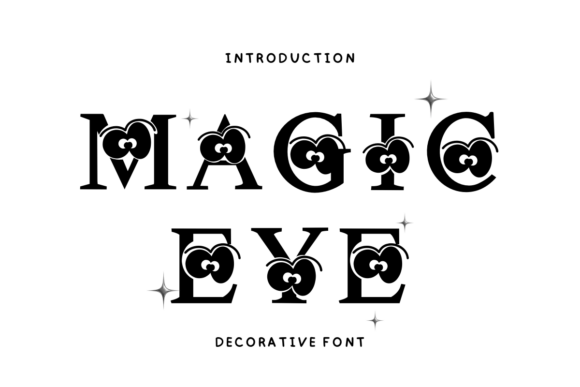
Introducing Magic Eye Font: Adding Whimsy and Charm to Your Designs
In the world of typography, fonts play a crucial role in conveying the tone and personality of a design. With the vast array of fonts available, it can be challenging to find one that stands out from the rest. However, if you’re looking for a font that can add a touch of magic to your designs, look no further than Magic Eye Font. This enchantingly decorative font is perfect for adding charm to your daily jottings, diary entries, or thoughtful greeting cards.
The Versatility of Magic Eye Font
Magic Eye Font is not just limited to personal use; its versatility extends beyond that. This aesthetic typeset can be used to add a touch of whimsy and character to a wide array of designs. Whether you’re looking to create eye-catching banners, engaging content, or stylish stationery, Magic Eye Font is the perfect choice. Its unique and distinctive style can elevate your designs from commonplace to captivating, infusing them with a magic of their own.
Use Magic Eye Font for Personal Projects
Magic Eye Font is perfect for personal projects, such as:
- Daily jottings and journaling: Add a touch of charm to your daily journal entries with Magic Eye Font.
- Diary entries: Make your diary entries more engaging and visually appealing with this enchanting font.
- Greeting cards: Create thoughtful and unique greeting cards for special occasions using Magic Eye Font.
Elevate Your Designs with Magic Eye Font
Magic Eye Font can also be used to elevate your designs, including:
- Banners: Create eye-catching banners for events, promotions, or announcements using Magic Eye Font.
- Content: Add a touch of whimsy and character to your blog posts, articles, or social media content.
- Coffee mugs: Design stylish and unique coffee mugs with Magic Eye Font.
- Cards: Create visually appealing cards for special occasions, such as birthdays, weddings, or holidays.
Make Your Social Media Posts Stand Out
In today’s digital age, social media has become an essential platform for self-expression and communication. With Magic Eye Font, you can make your social media posts stand out from the crowd. Use this enchanting font to:
- Create engaging captions for your photos and videos.
- Design eye-catching graphics and quotes.
- Add a touch of personality to your social media profiles.
Add a Stylish Twist to Your Stationery
Magic Eye Font is not just limited to digital designs; it can also be used to add a stylish twist to your stationery. Use this font to:
- Create unique and visually appealing letterheads.
- Design stylish and elegant invitations.
- Add a touch of personality to your notebooks and journals.
Perfect for Fashion and Apparel Designs
Magic Eye Font is also perfect for fashion and apparel designs. Use this font to:
- Create stylish and unique t-shirt designs.
- Design eye-catching slogans and taglines for your clothing brand.
- Add a touch of personality to your fashion accessories, such as hats, scarves, or bags.
Tips for Using Magic Eye Font
- Use Magic Eye Font in combination with other fonts to create a unique and visually appealing design.
- Experiment with different colors and textures to add depth and interest to your design.
- Keep your design simple and clean to ensure that the font remains the focal point.
In conclusion, Magic Eye Font is a versatile and enchanting font that can add a touch of magic to your designs. Whether you’re looking to create personal projects, elevate your designs, or make your social media posts stand out, this font is the perfect choice. With its unique and distinctive style, Magic Eye Font can help you create captivating designs that infuse your brand with a magic of its own.